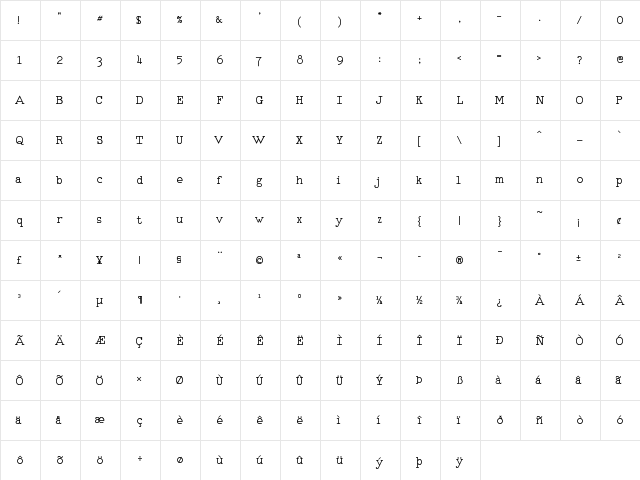
RM Typerighter medium Regular
| Designer | Ray Meadows |
Design Context for RM Typerighter medium Typeface
RM Typerighter medium is a composed and adaptable typeface that performs quietly and consistently across a wide range of design contexts.